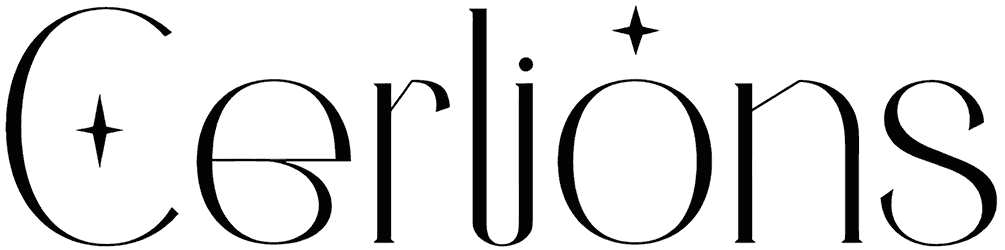
Cerlions Font
Cerlions is a pure blend of elegance and classic that comes with a feeling of formality, respect, authenticity, or trustworthiness. Since its characters are totally delicate, this luxury serif font would suit all of your creative ideas, including business cards, magazines, presentations, logos, or branding projects. We strongly recommend you take a look at our rich archive and create charming outcomes with our remarkable fonts.